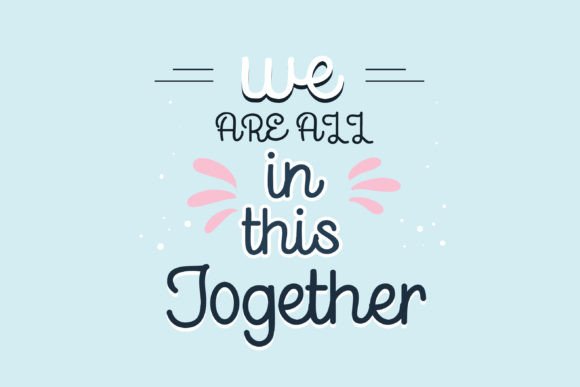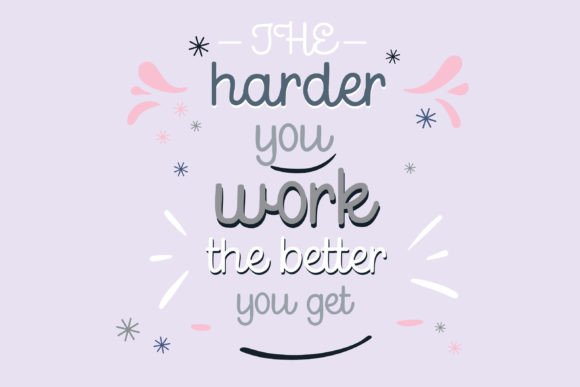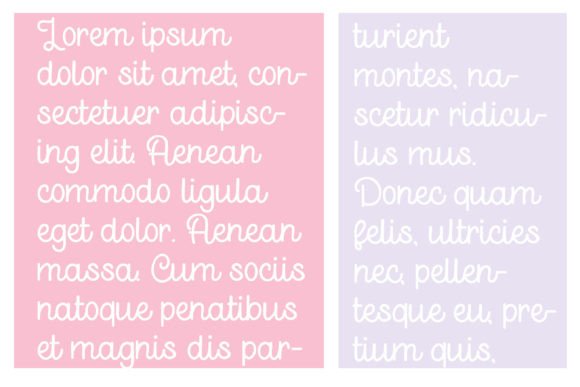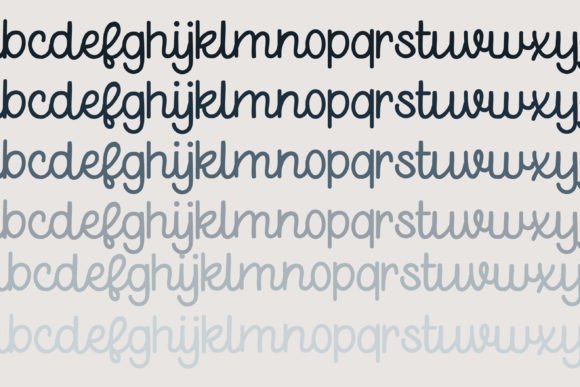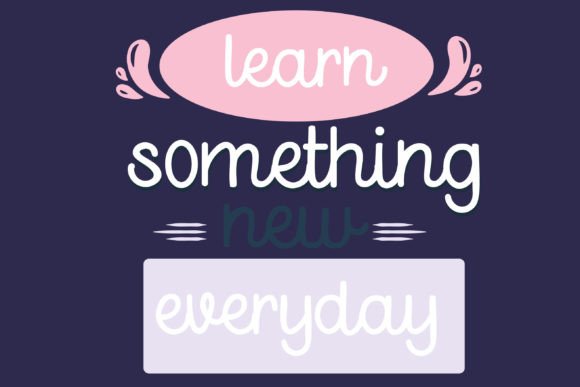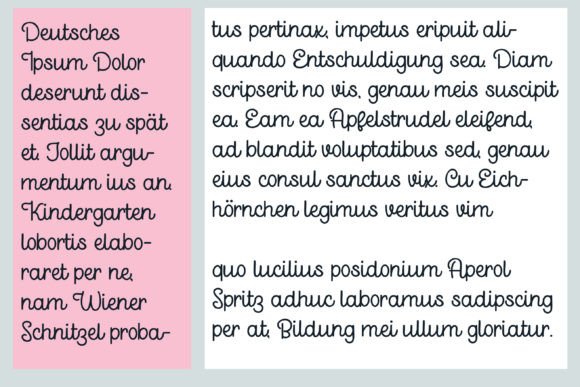
Introducing Heaven Font: A Youthful and Elegant Handwritten Script
Are you looking for a font that can add a personal touch to your designs? Look no further than Heaven Font, a beautiful handwritten script that is sure to elevate your projects. This stunning font is a youthful, upright cursive with flourished uppercase letters, making it perfect for a variety of creative endeavors.
What is a Handwritten Font?
A handwritten font is a type of font that is designed to mimic the look of handwriting. It is often used for invitations, greeting cards, and other items where a personal touch is desired. Handwritten fonts can add a level of warmth and personality to a design that is hard to achieve with more traditional fonts.
Characteristics of Heaven Font
Heaven Font is a unique and elegant handwritten script that boasts several distinctive characteristics. Some of its key features include:
- Youthful and upright cursive style, perfect for modern designs
- Flourished uppercase letters, adding an extra touch of elegance
- Handwritten feel, giving your designs a personal and unique touch
Uses for Heaven Font
Heaven Font is a versatile font that can be used for a wide range of creative projects. Some popular uses for this font include:
- Invitations: Whether you’re planning a wedding, birthday party, or other special event, Heaven Font is a great choice for your invitations.
- Greeting cards: Add a personal touch to your greeting cards with Heaven Font, perfect for birthdays, holidays, and other special occasions.
- Stationery: Elevate your stationery with Heaven Font, making your letters and notes stand out.
- Branding: Use Heaven Font to add a touch of elegance and sophistication to your brand’s identity.
Benefits of Using Heaven Font
There are many benefits to using Heaven Font in your designs. Some of the advantages of this font include:
- Unique and eye-catching: Heaven Font is a distinctive and stylish font that is sure to grab attention.
- Personal touch: The handwritten feel of Heaven Font adds a level of warmth and personality to your designs.
- Versatile: Heaven Font can be used for a wide range of creative projects, from invitations to branding.
Tips for Using Heaven Font Effectively
To get the most out of Heaven Font, here are a few tips to keep in mind:
- Use it sparingly: Heaven Font is a bold and eye-catching font, so use it sparingly to avoid overwhelming your design.
- Pair it with other fonts: Heaven Font pairs well with other fonts, such as sans-serif fonts, to create a visually appealing contrast.
- Experiment with colors: Heaven Font looks great in a variety of colors, so don’t be afraid to experiment and find the perfect hue for your design.
Heaven Font is a beautiful and elegant handwritten script that is sure to elevate your designs. With its youthful and upright cursive style, flourished uppercase letters, and handwritten feel, this font is perfect for a variety of creative projects. Whether you’re a designer, crafter, or DIY enthusiast, Heaven Font is a great choice for adding a personal touch to your work.